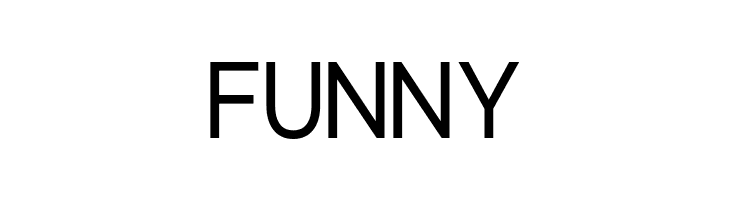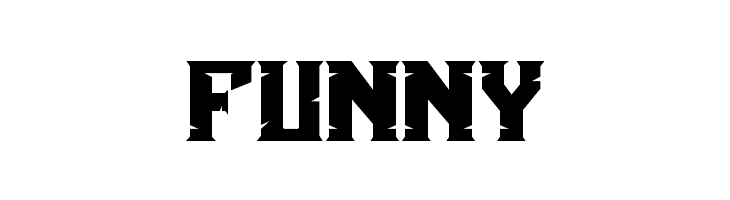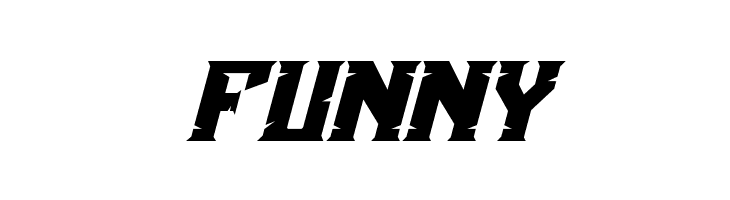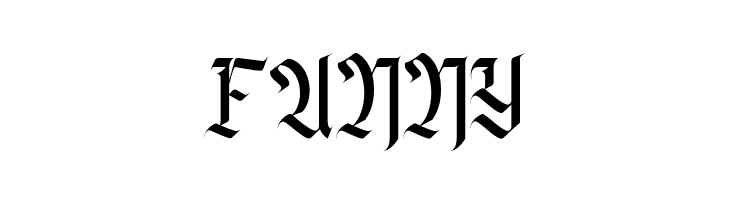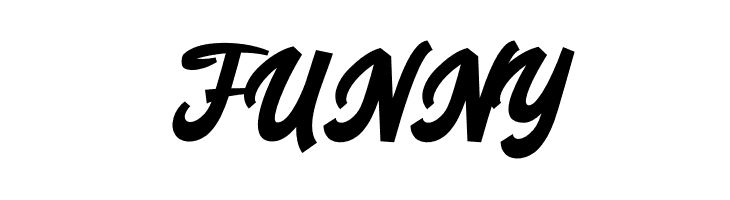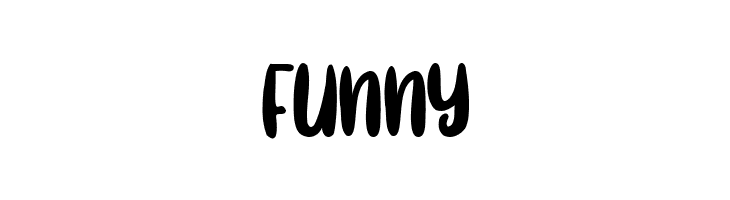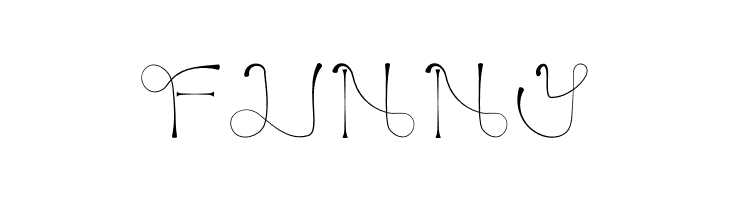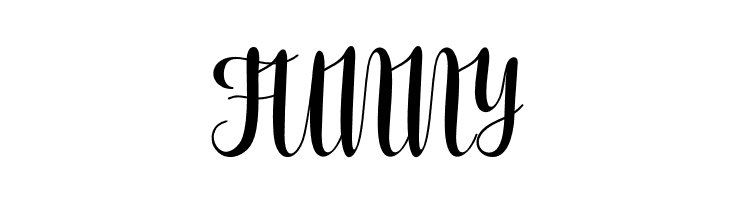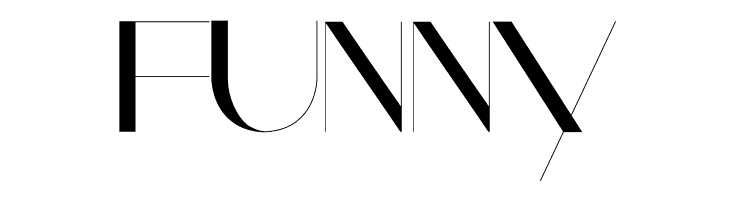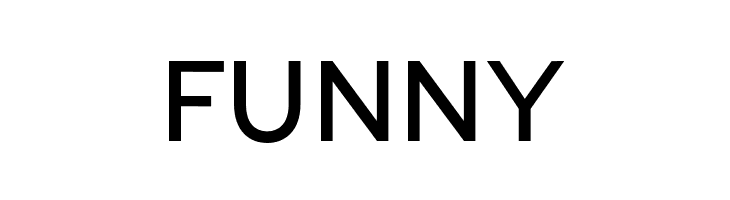
A bold, dynamic script font with a fluid, connected style.
A bold, dynamic script font with high contrast and flowing characters.
A bold, expressive script font with a hand-drawn, dynamic style.
A clean, modern sans-serif font with balanced spacing and consistent stroke width.
A bold, playful handwritten font with smooth curves and close spacing.
An elegant script font with flowing, interconnected letterforms and ornate swashes.
A graceful, cursive script font with elegant, flowing characters.
A bold, expressive script font with fluid, cursive strokes and dynamic flow.
A whimsical and playful font with looping and swirling strokes.
A bold, dramatic Blackletter-style font with intricate details and sharp angles.
A bold, angular Blackletter font with a historical and elegant style.
A bold, modern font with geometric elements and strong visual impact.
A bold, modern font with dynamic angles and clean lines.
An elegant, flowing script font with smooth, cursive lines and graceful curves.
A lively, expressive script font with a modern, handwritten feel.
A playful and elegant handwritten script font with a dynamic flow.
A classic serif font with high contrast and elegant strokes.
A modern, bold sans-serif font with geometric influences and uniform stroke widths.
A modern, geometric font with thin lines and bold circular accents.
An elegant script font with calligraphic flourishes and smooth connections.
A lively, cursive font with interconnected letters and elegant curves.
A modern, elegant script font with flowing, interconnected letters.
A bold, Gothic-inspired font with sharp, angular edges and strong geometric shapes.
A bold, angular italic font with dynamic and energetic styling.
A playful, bold font with rounded edges and a hand-drawn aesthetic.
A playful, bold, hand-drawn uppercase font with a casual and friendly feel.
A sophisticated cursive font with elegant, flowing strokes.
A modern, high-contrast font with elegant serifs and artistic flourishes.
A bold, angular font with a futuristic and dynamic design.
An elegant script font with flowing, cursive letterforms and ornate details.
A modern, high-contrast font with elegant serifs and artistic special characters.
A modern serif font with bold strokes and elegant curves.
A flowing, elegant script font with ornate uppercase and harmonious lowercase letters.